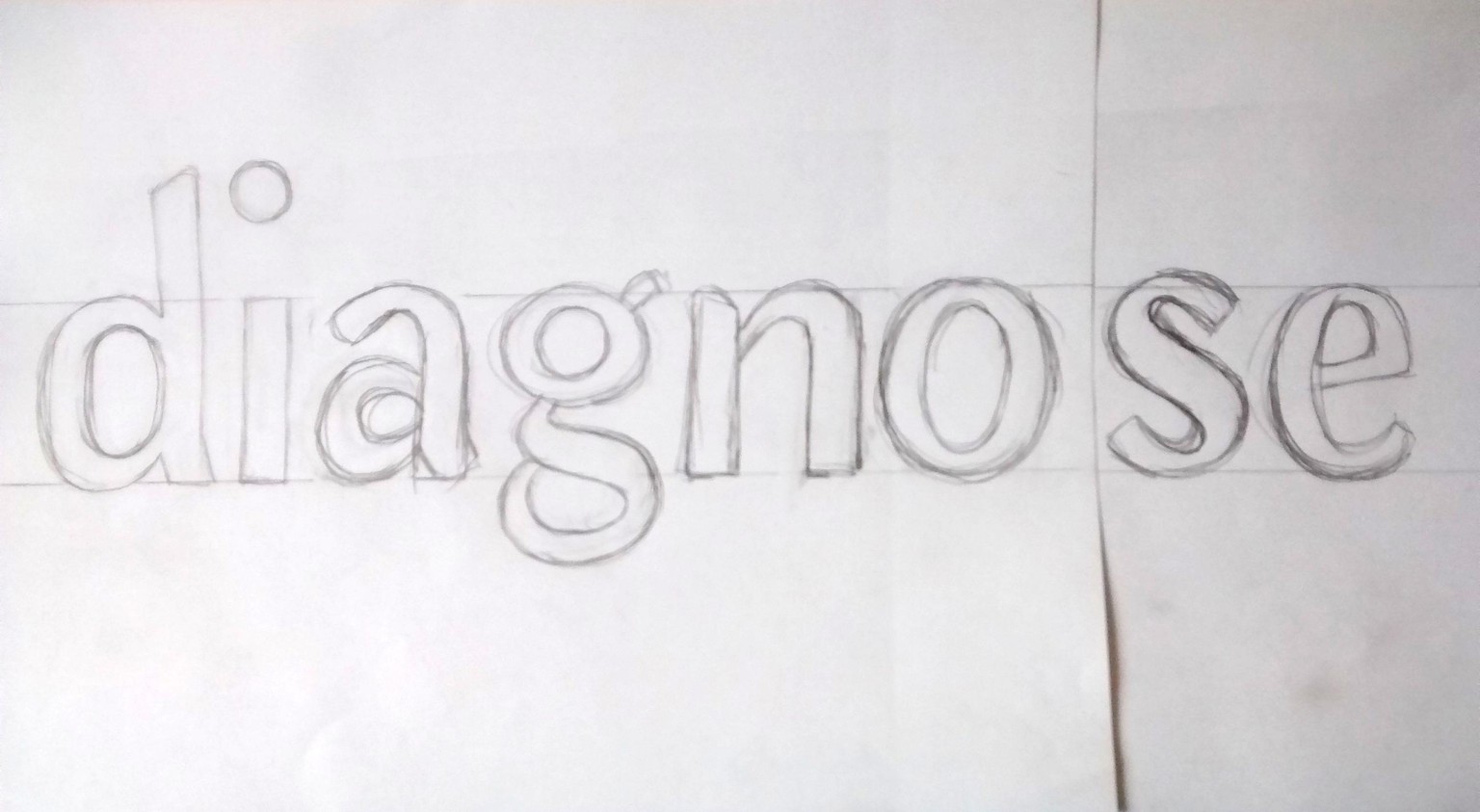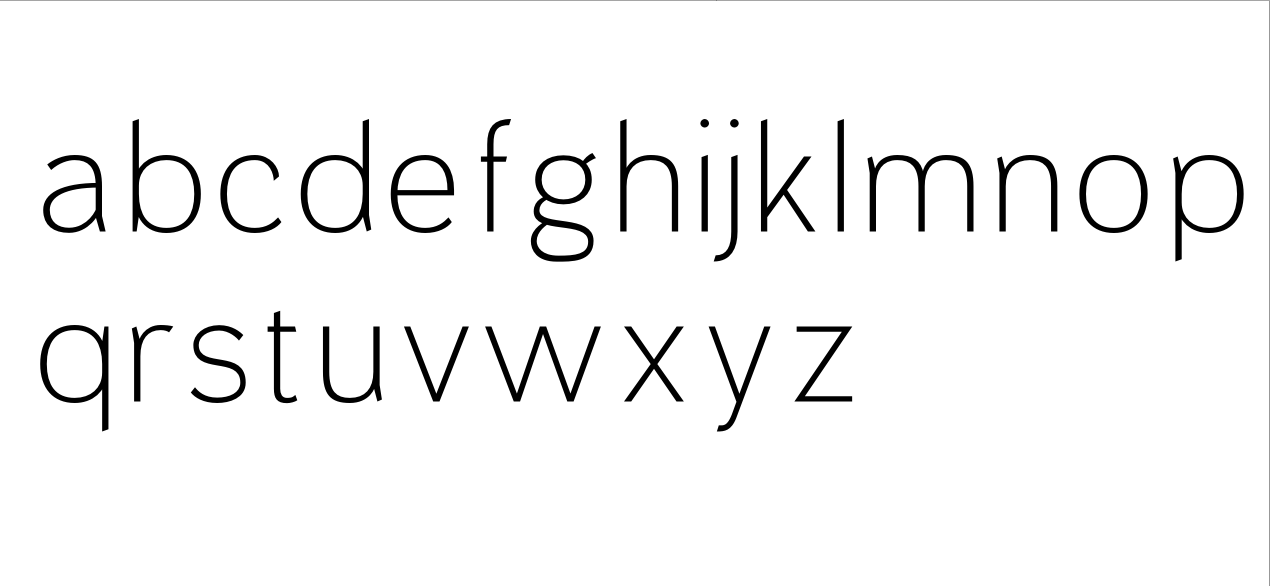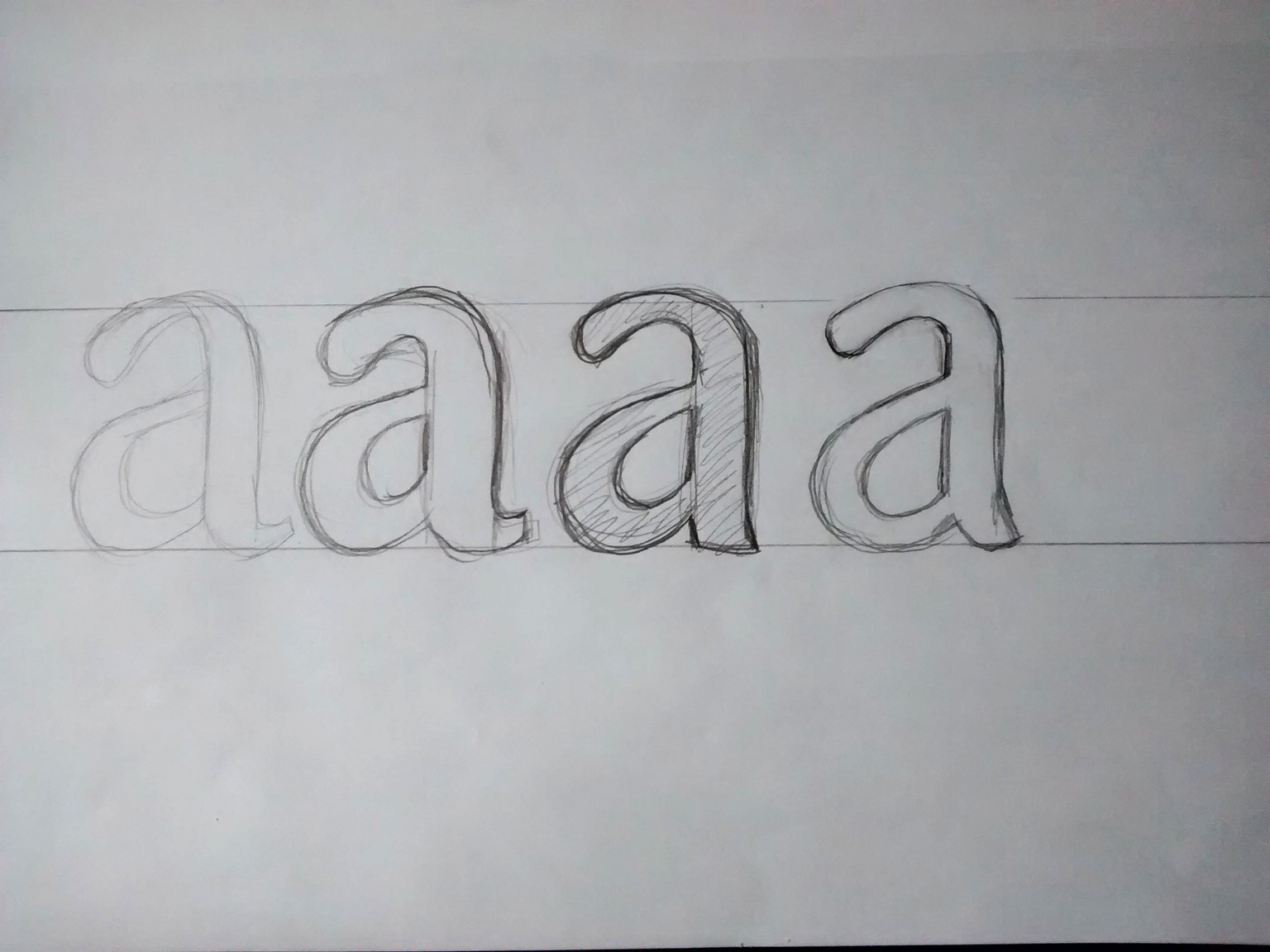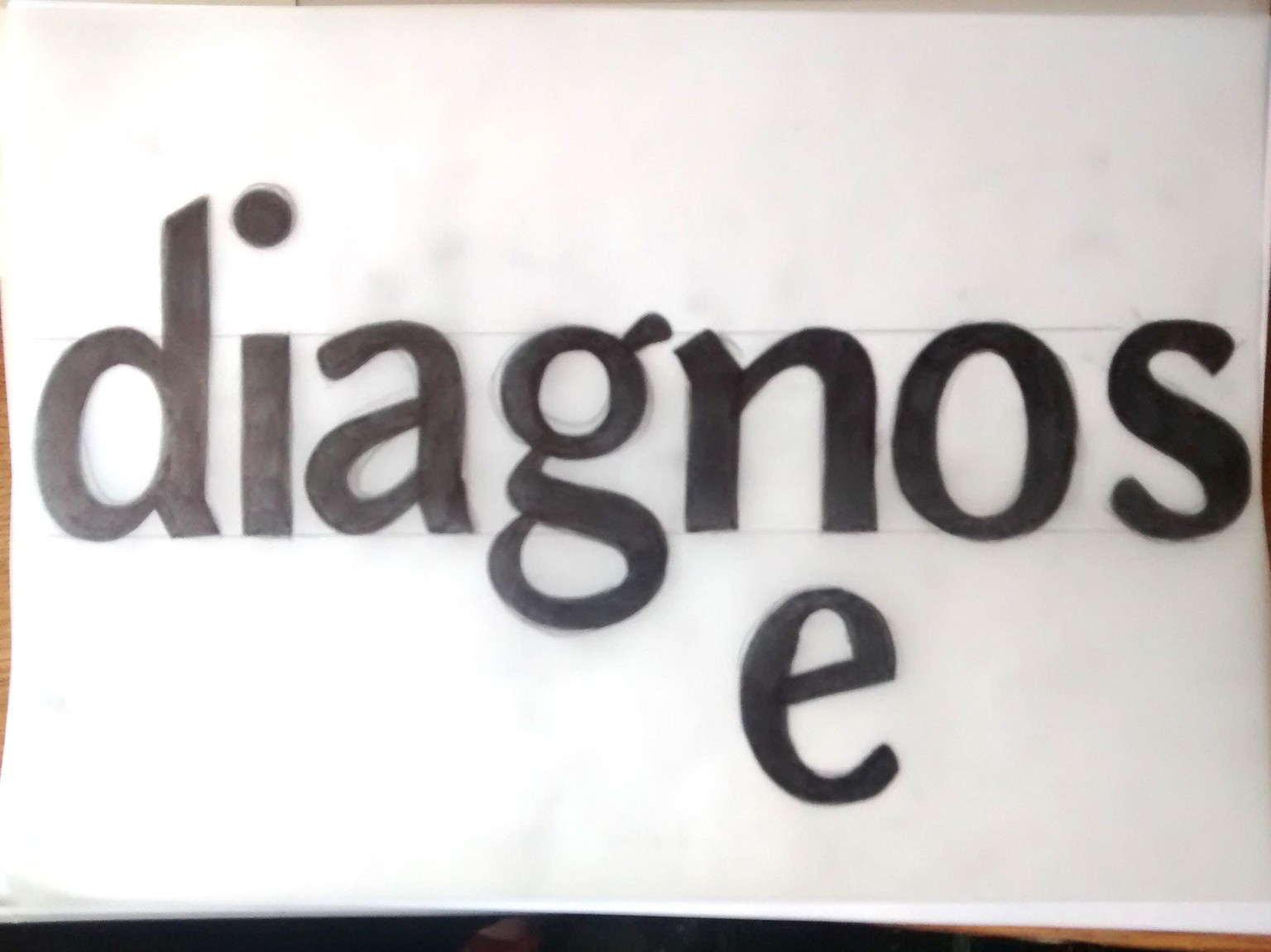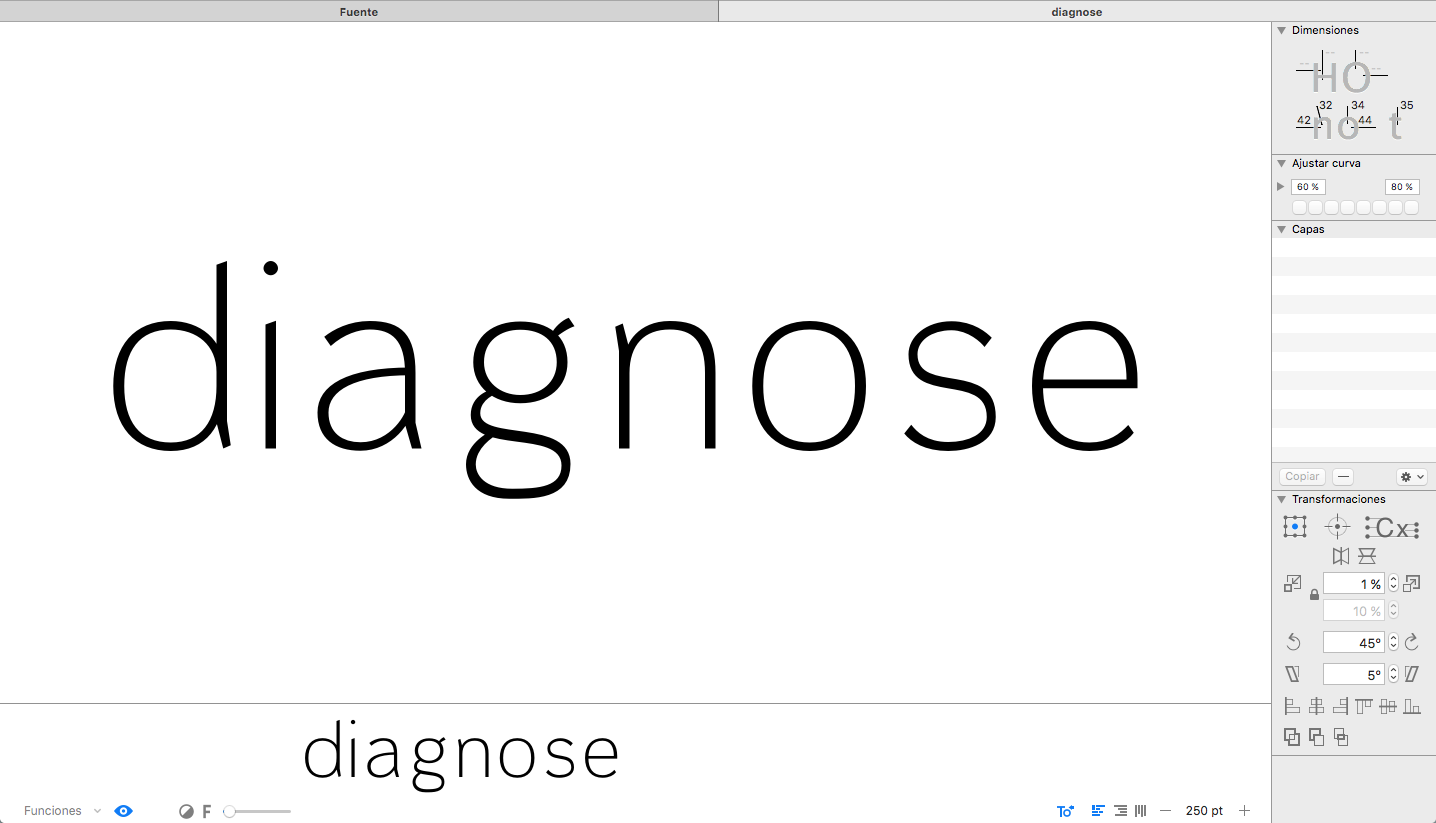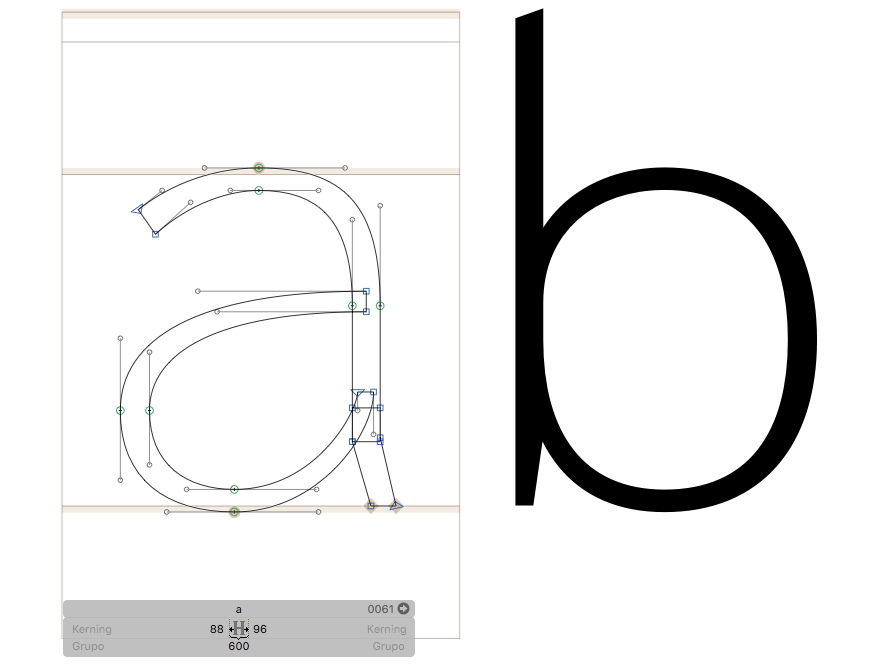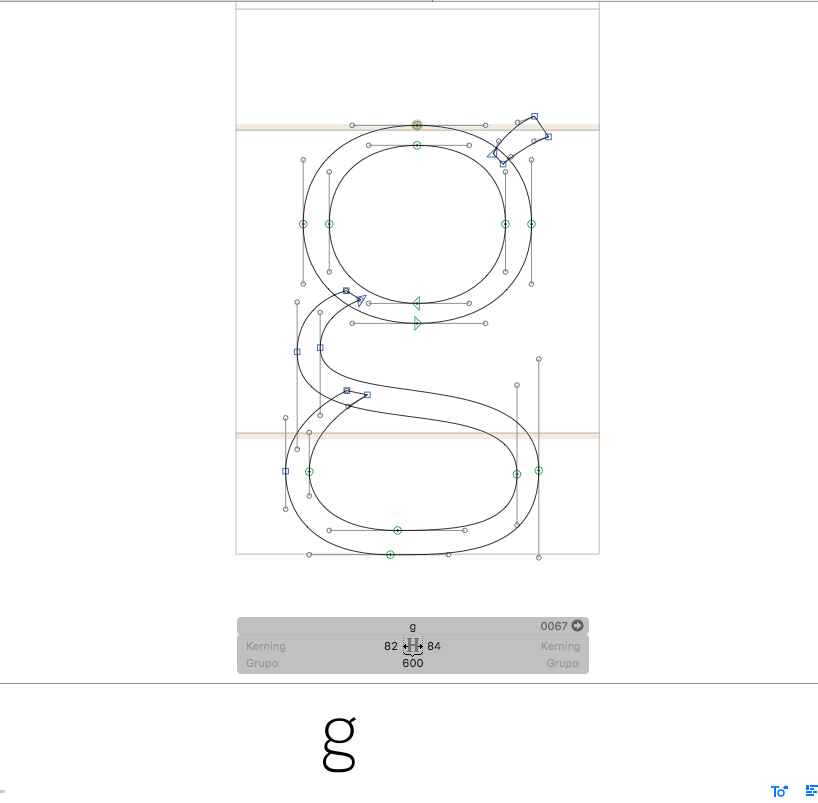
Ultra Light typeface
Hello! I decided give this project a try: I've been trying to design fonts for a while now, and learning on my own. Skillshare has been really useful and i've learned a lot so far.
So I decided to switch from fontlab to glyphs, and I've got to say I'm loving the interface! I'm still trying to get all the different options and all, but it's been a nice experience.
This class is very didactic and it's been helping me a lot: I'd love to have more classes like this! (for example with uppercase letters, diactrics, opentype features)...
Well, I started sketching looking for the style I was wanting...
But when I started digitalizing it, I realized that I wanted to make a really LIGHT font, so I tried to keep the shapes but made the strokes lighter.
I've made some changes on the way too, so some glyphs got to be very different.